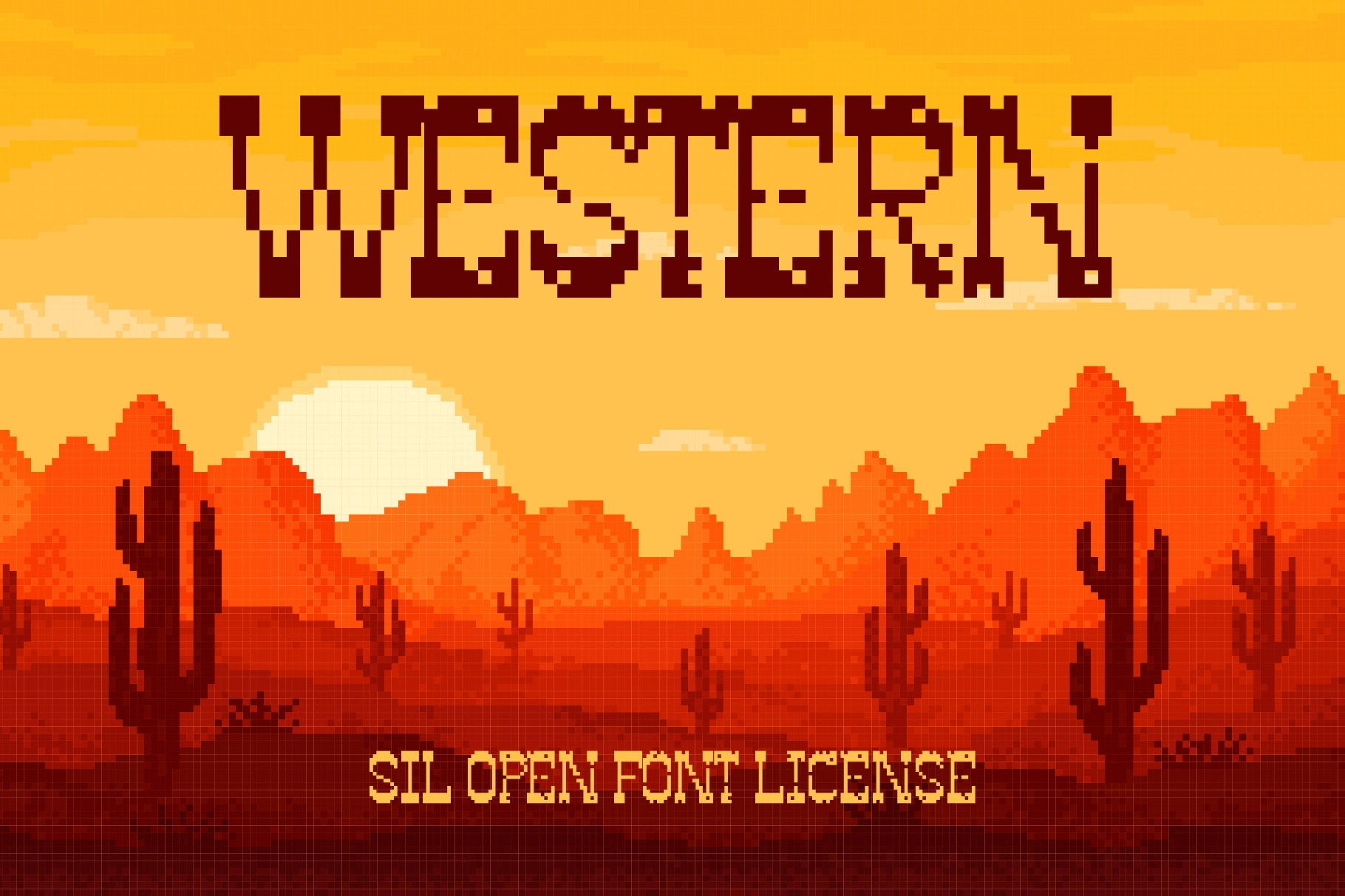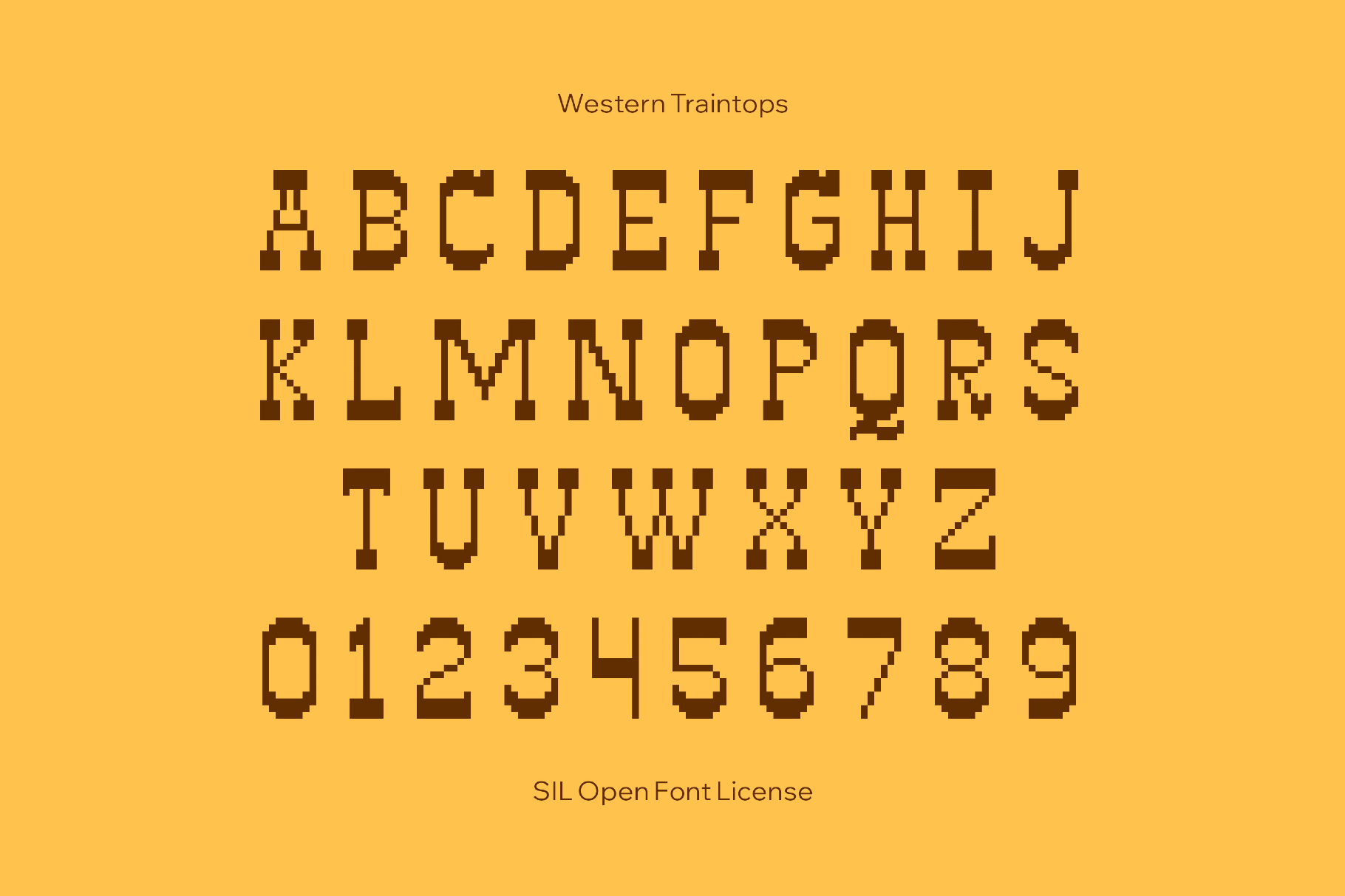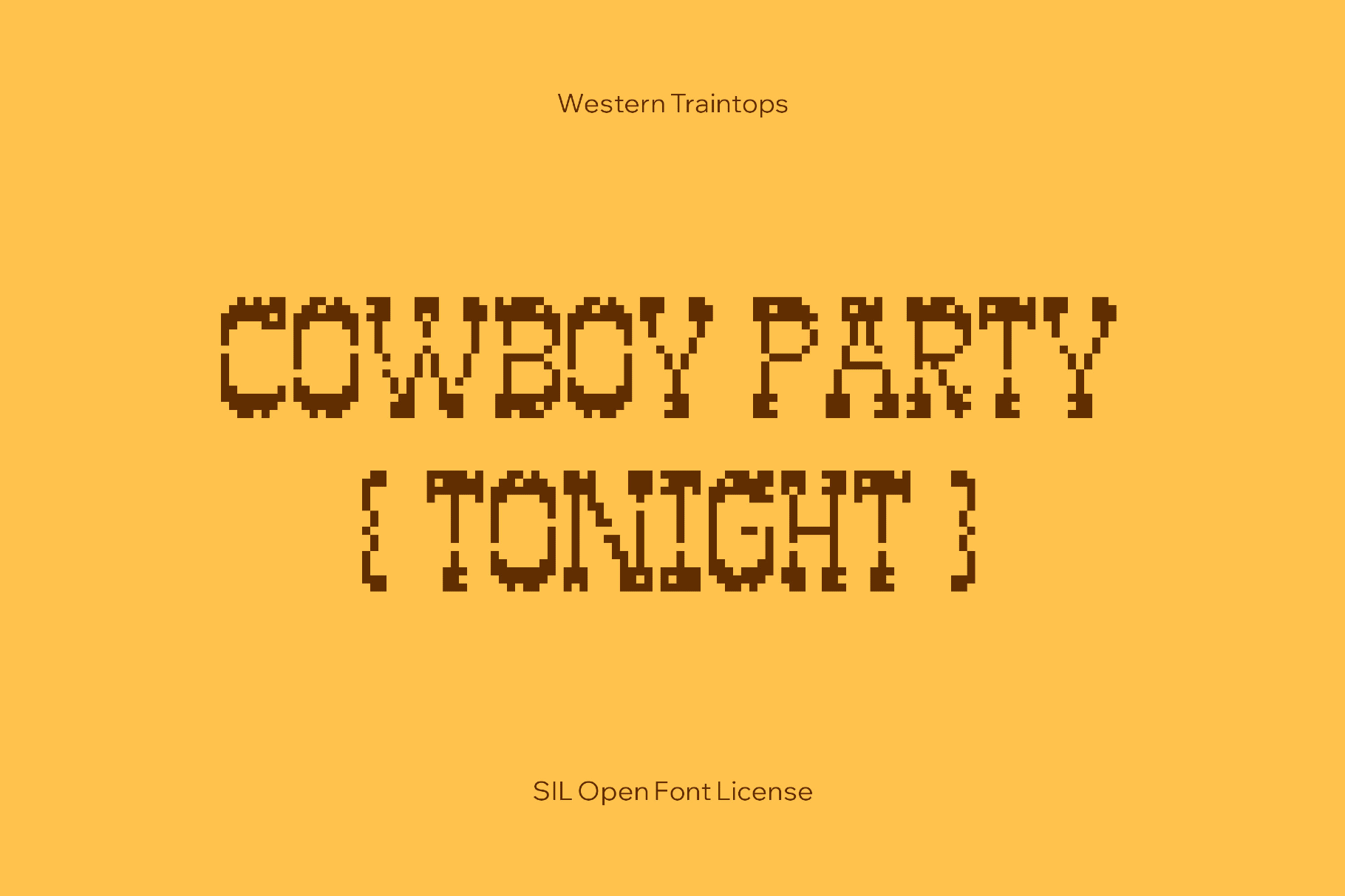
Western Traintops
This all-caps pixel display stacks chunky slab letters onto a tight grid, with every glyph reading as it belongs on a station board in a desert town. Two uppercase sets — one solid, one rugged and distressed — shift the mood from clean signage to worn-out poster. It’s an excellent choice for Western-themed branding, poster headlines, festival promos, bar signage, packaging labels, film or game titles, and merchandise graphics with a cinematic rustic punch.
- Two uppercase sets with solid and rugged pixel treatments.
- International characters with multilingual support across Latin languages.